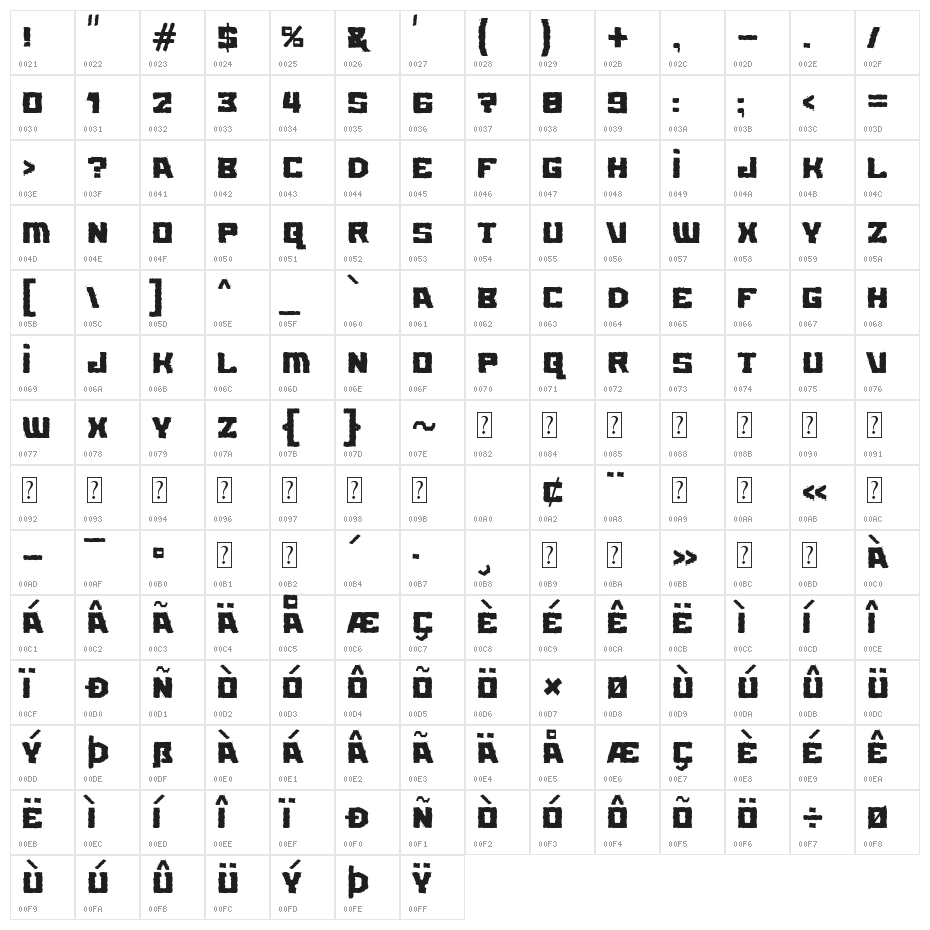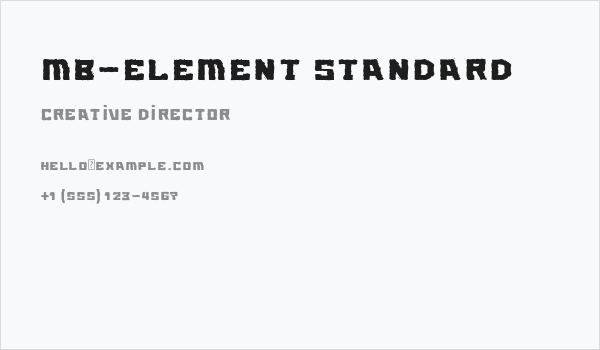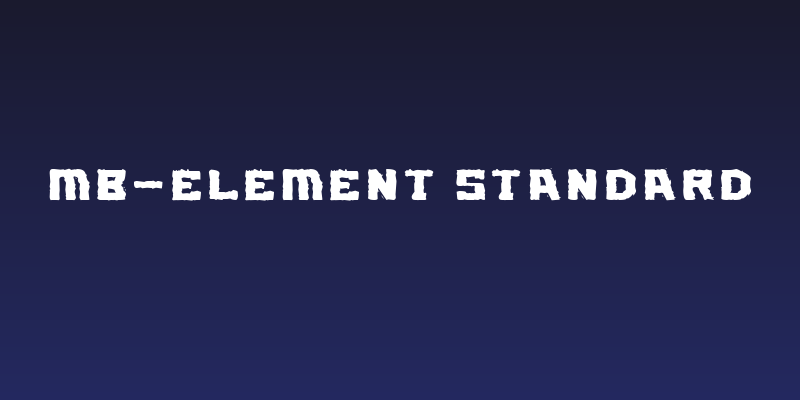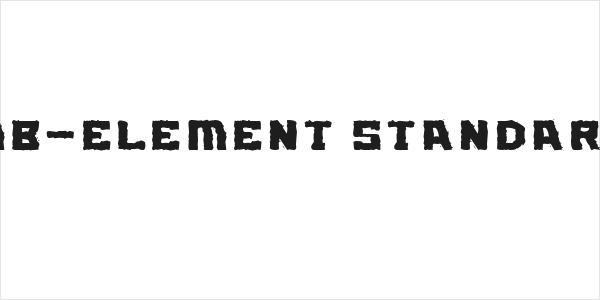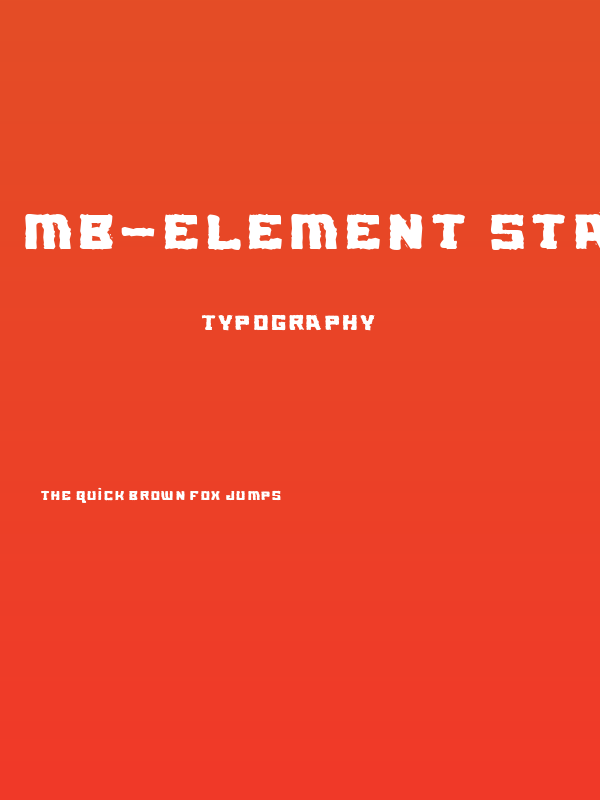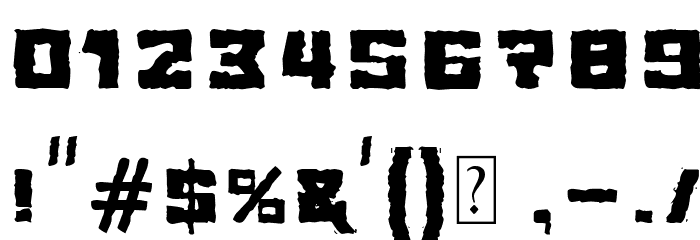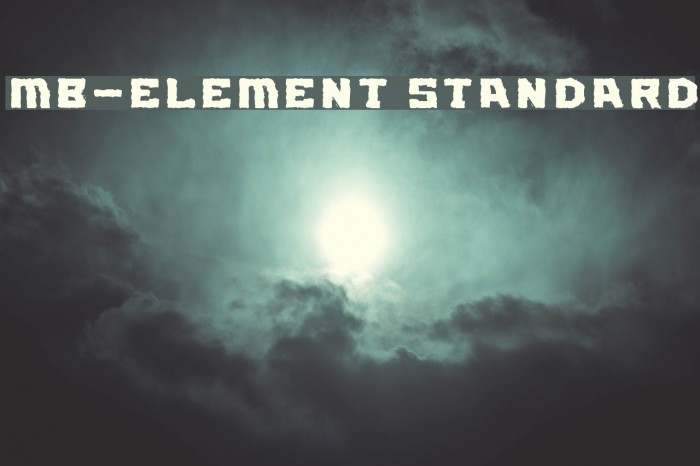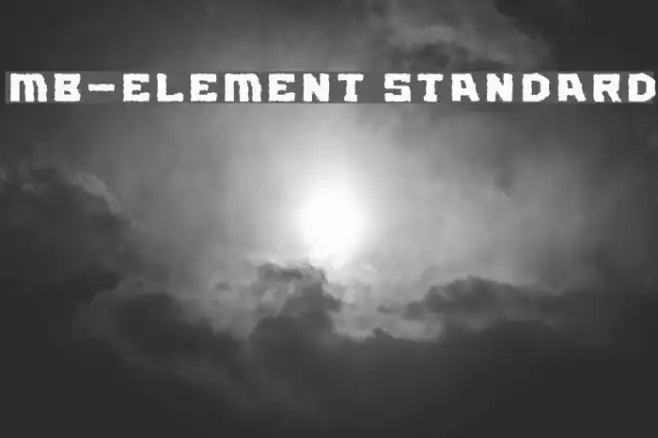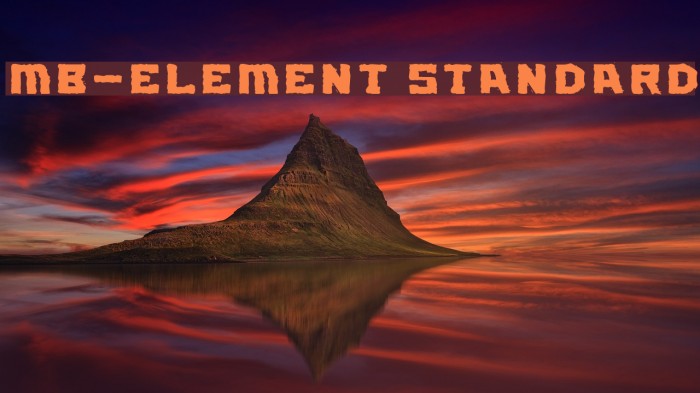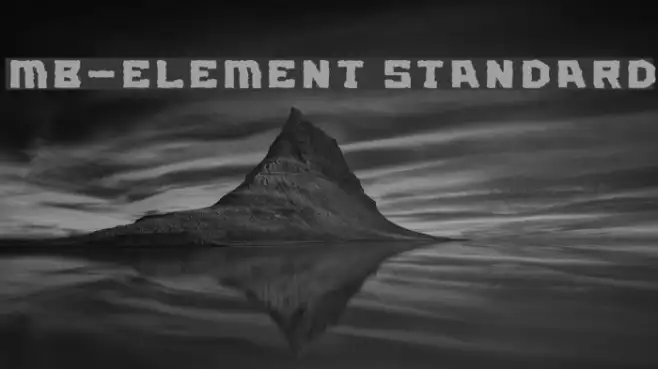
MB-Element Standard Font
MB-Element Standard Description
This font features a bold, rugged style with a distressed, textured appearance. The characters have a blocky, geometric form, giving them a strong and impactful presence. The rough edges and uneven strokes create a sense of movement and energy, making it ideal for designs that require a dynamic and bold statement. The uppercase and lowercase letters maintain consistent proportions, while the numerals and special characters complement the overall aesthetic with their robust and gritty design.
| Proposed Projects | Ideal for posters, album covers, branding for outdoor or adventure-themed products, and any design requiring a bold, impactful look. |